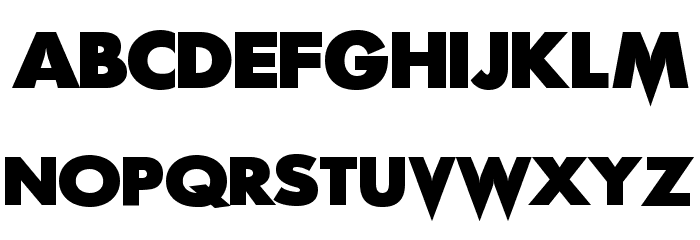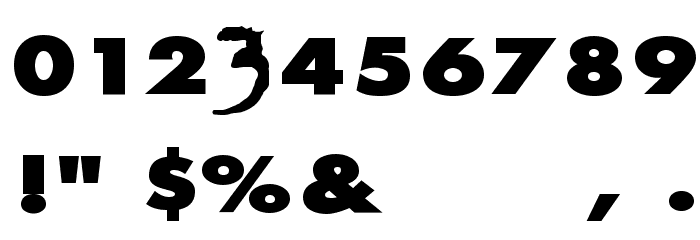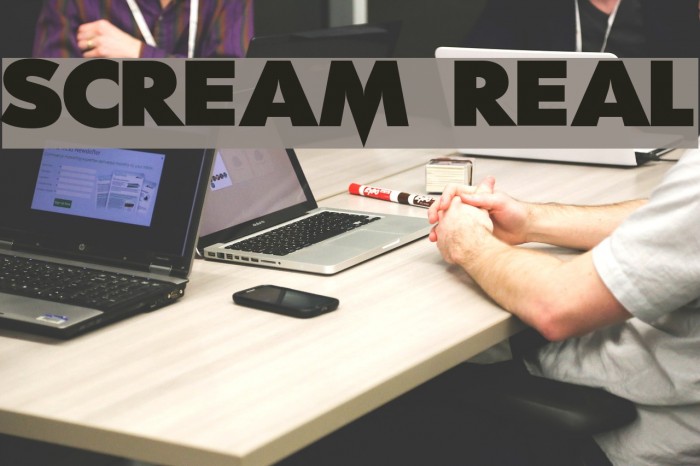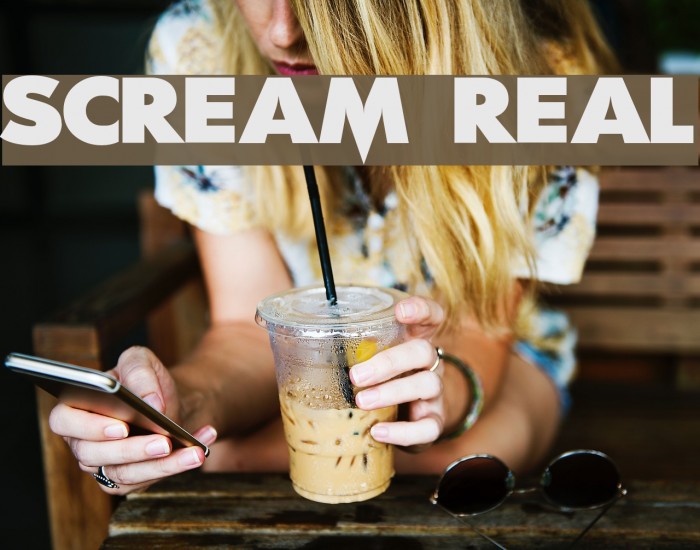
Scream Real Font
This font features a bold and striking design, characterized by sharp, angular edges and a strong presence. The uppercase letters are particularly prominent, with a dynamic and aggressive style that commands attention. The numbers maintain this bold aesthetic, with the number '3' having a unique, almost claw-like appearance. The special characters are consistent with the overall bold theme, adding a touch of flair. This font is ideal for projects that require a dramatic and impactful visual statement.
A bold, angular font with a dramatic and aggressive style.
- Proposed Projects: Perfect for horror movie posters, Halloween event flyers, or any project needing a bold, dramatic impact.
- Category: Decorative/Display
- Contrast: High
- Use Case: Headlines, Posters, Logos